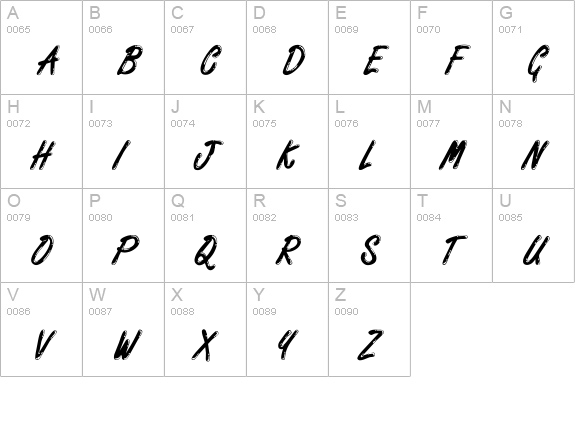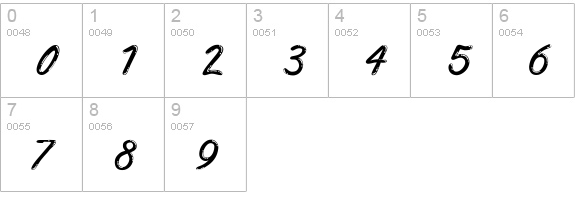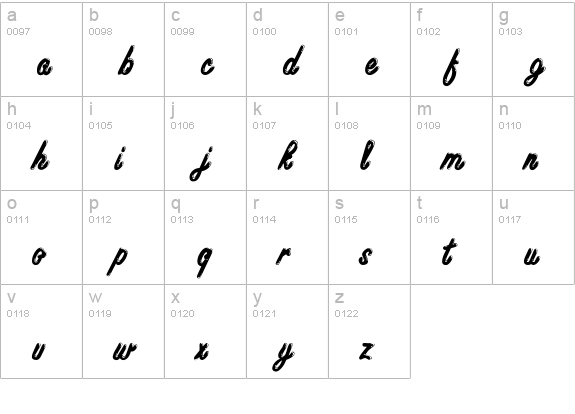
TR Freestyle Script Bold Font Details
TR Freestyle Script Bold is a strong, high-contrast variant in the TR typeface family \xE2\x80\x94 well suited to headlines, attention-grabbing titles, and strong calls-to-action.
TR Freestyle Script Bold font is a modern and stylish typeface designed for adding a touch of flair to your projects. With its bold and dynamic strokes, this font conveys a sense of creativity and individuality. Whether you're working on a design project, crafting a logo, or creating eye-catching headlines, TR Freestyle Script Bold is the perfect choice to make a statement. Best of all, this font is available for free download at FontsMarket.com. So you can easily access this versatile typeface and enhance your designs with its unique charm. Grab your copy of TR Freestyle Script Bold today and let your creativity run wild!